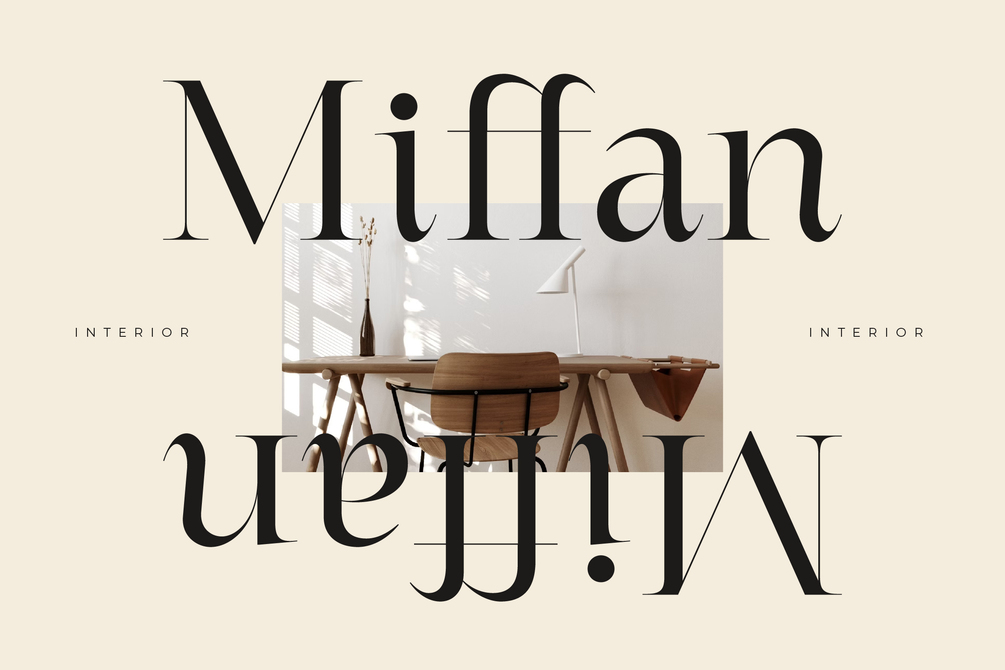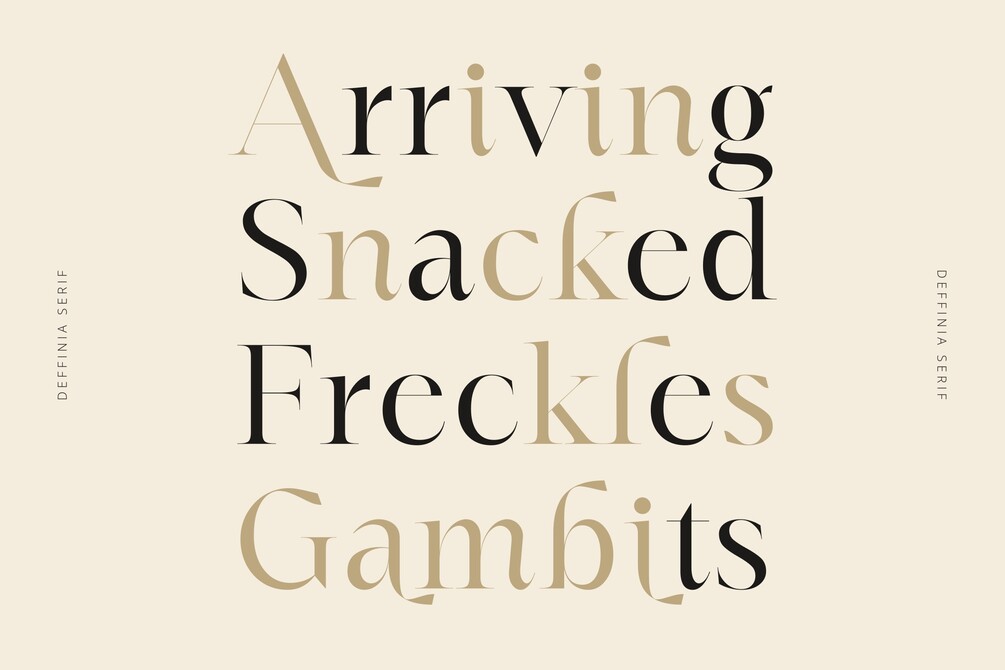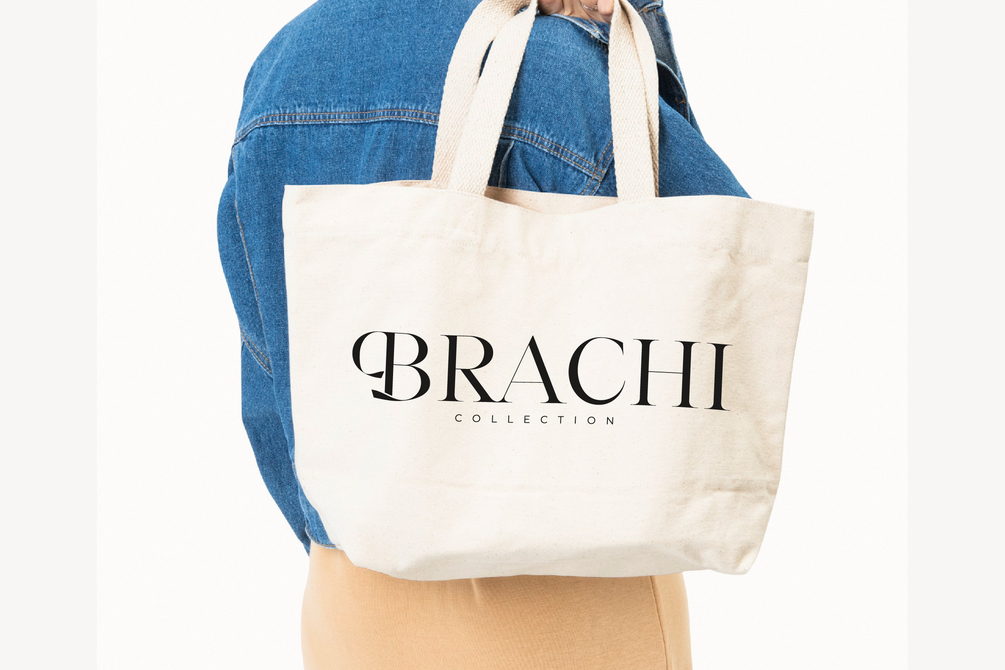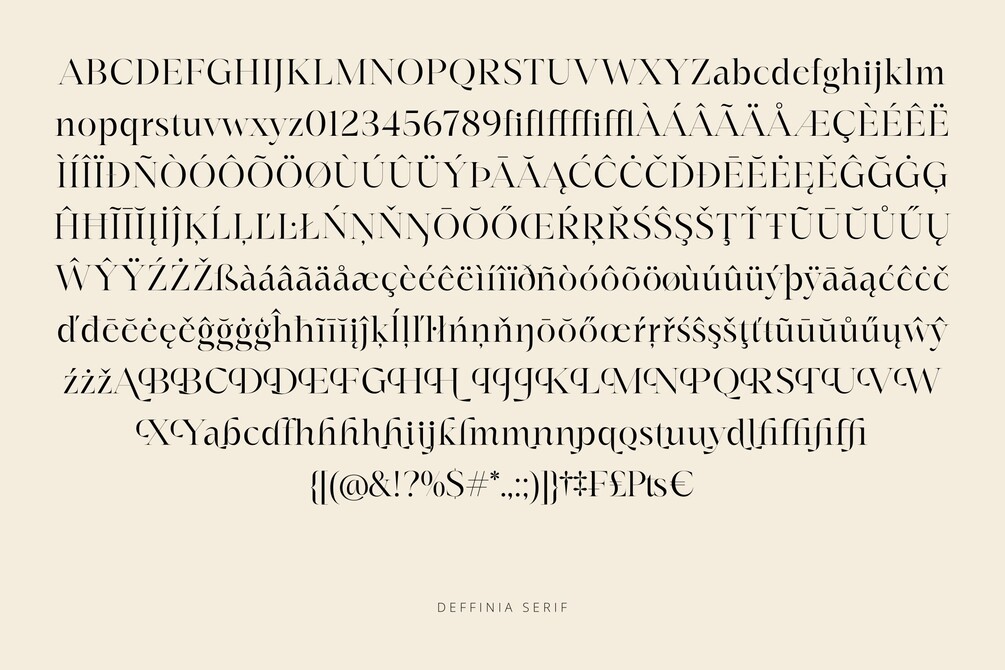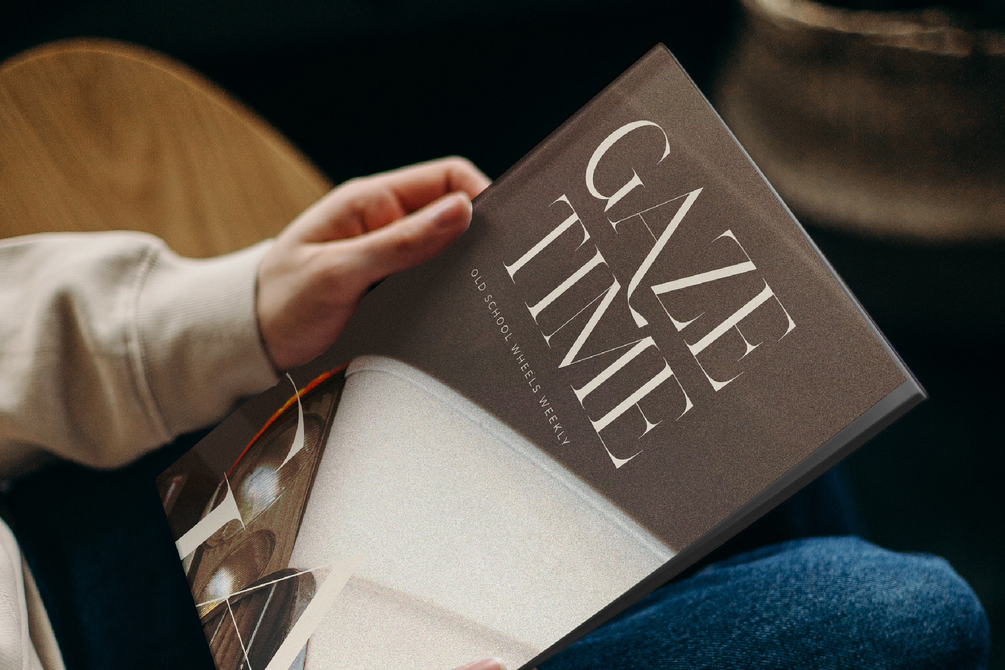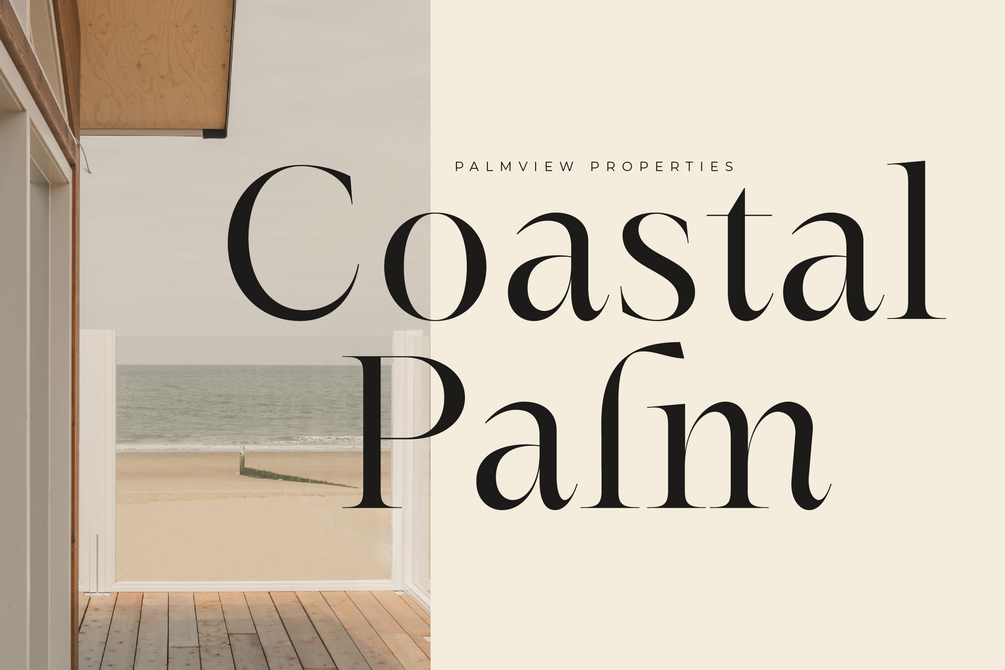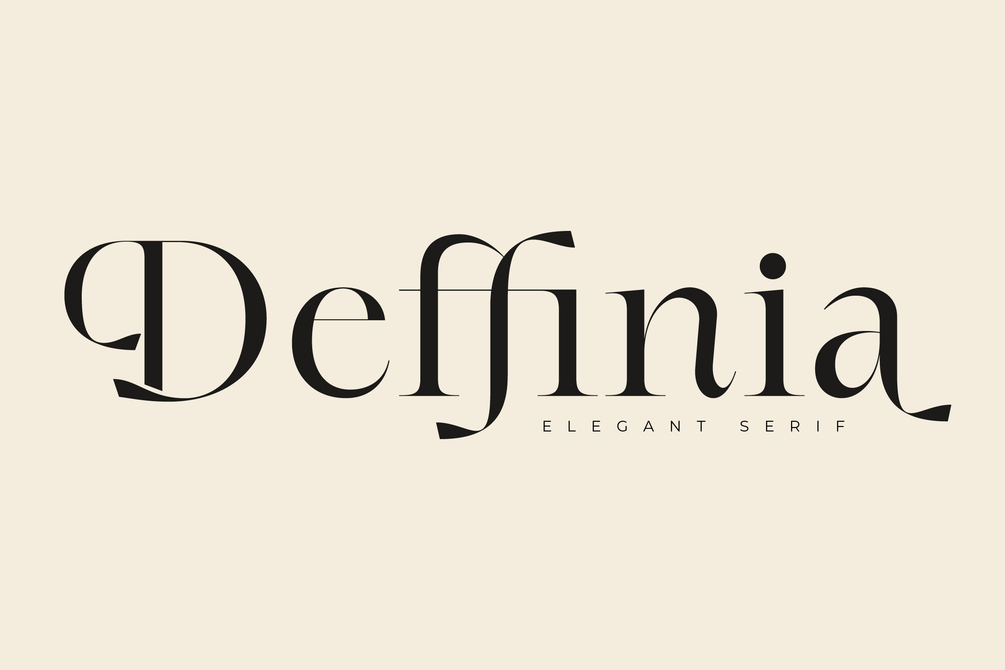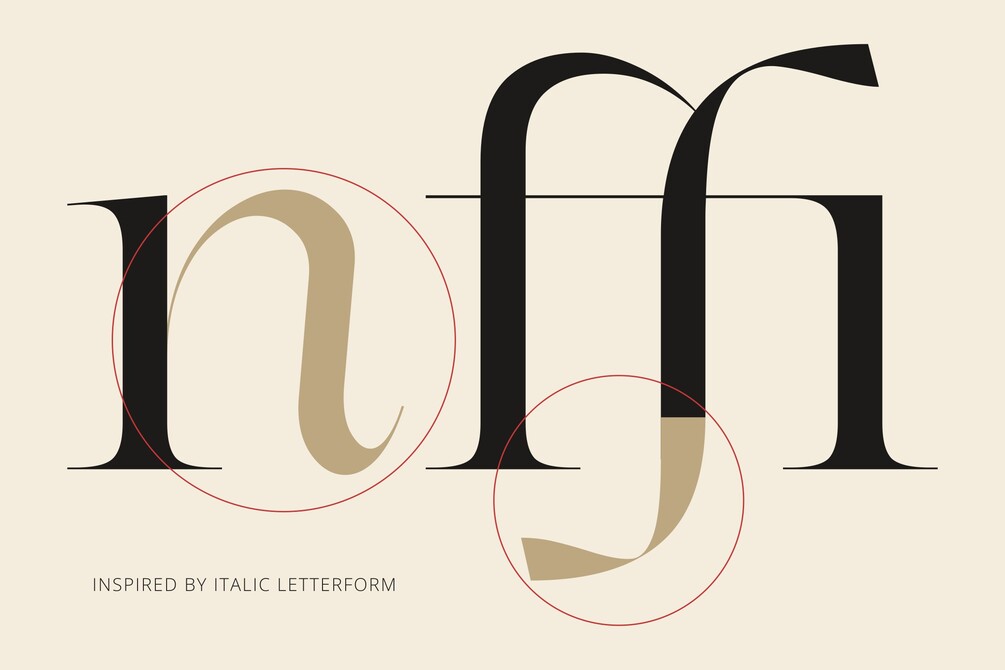
Deffinia
Deffinia is an elegant, slightly vintage font ideal for logos, trademarks, and headlines. It's versatile, featuring Basic Latin Glyphs, alternates, ligatures, and multilingual support. The font also includes a PUA for extra customization. Overall, Deffinia is a powerful and adaptable font with a bold, vintage style designed to enhance creative projects and make a lasting impact.